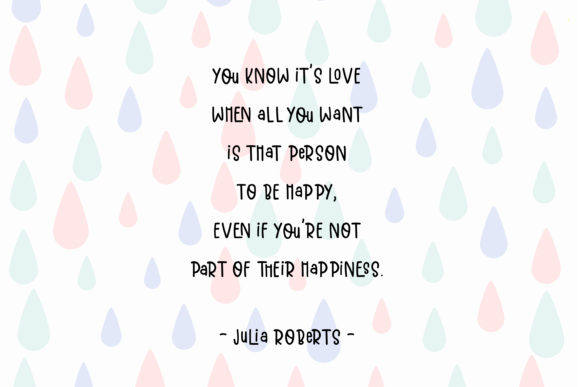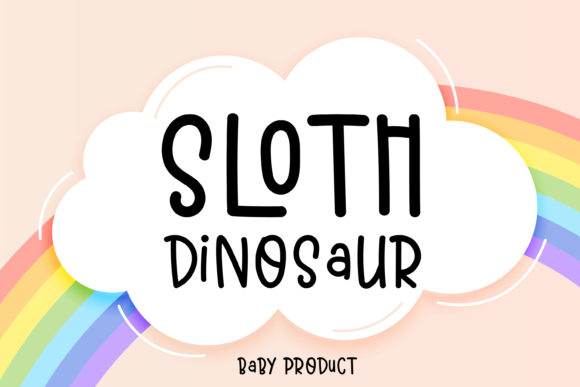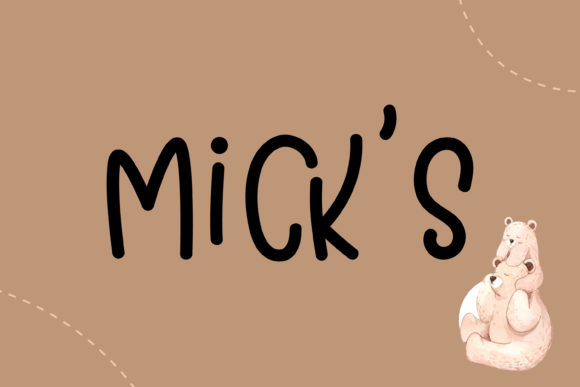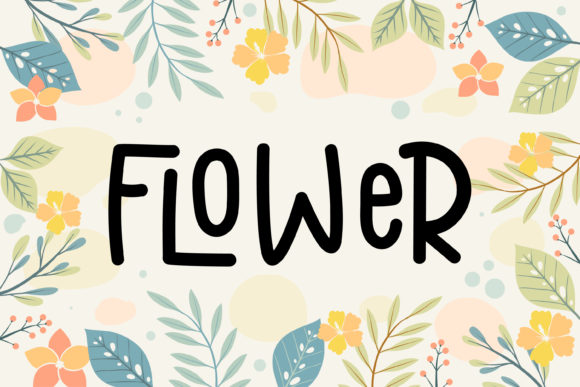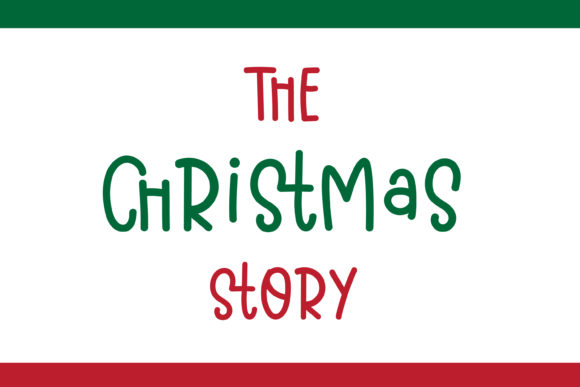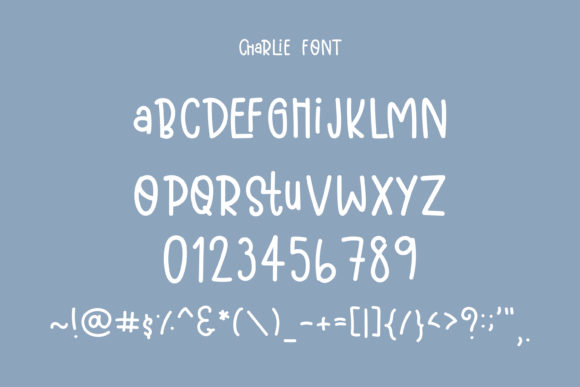
Handwritten with Love: Discovering the Magic of Charlie Font
Do you remember the joy of writing love letters to your crush or creating handmade cards for your best friend? Those simple, heartfelt gestures hold a special place in our hearts, and it’s precisely this kind of warmth that the Charlie Font embodies.
Charlie Font is a charming, handwritten font designed to add a personal touch to any project. Whether it’s a children’s book, a school assignment, or a heartfelt thank you card, this font brings a sense of authenticity and love to every design. For designers, Charlie Font is a valuable asset, offering a unique way to convey emotions and connect with their audience on a deeper level.
With its versatility and charm, Charlie Font is a must-have for any design project that requires a handwritten touch. So, get ready to unleash your creativity and bring a little bit of love into your designs with the wonderful Charlie Font.
Charlie Font Key Features
• Unique Characteristics: Charlie Font features a unique blend of modern and vintage elements, with distinctive letterforms and ornaments that add a touch of elegance and sophistication to any design.
Charlie Font Review
As a designer, I’ve had the chance to work with Charlie Font, and I must say it’s been a mixed bag. On the one hand, here’s what works well:
• ✨ Beautifully designed letterforms that evoke a sense of classic elegance.
• ✨ Excellent legibility, even at smaller font sizes.
• ✨ A wide range of weights and styles to choose from, making it versatile for various design applications.
• ✨ Good support for both Latin and Cyrillic scripts.
• ⚠️ The font lacks a clear distinction between certain weights, making it difficult to choose the right one for a particular design project.
• ⚠️ The font doesn’t come with a comprehensive set of glyphs, which may be a problem for designers working with languages that require a wide range of characters.
• ⚠️ Some users may find the font’s x-height a bit too small, which can affect readability in certain situations.
Overall, Charlie Font is a solid choice for designers who value classic elegance and legibility. While it may not be perfect, it’s definitely worth considering for projects that require a timeless and sophisticated look.
Charlie Font is ideal for:
• Headlines and titles
• Branding and logos
• Editorial and publishing content